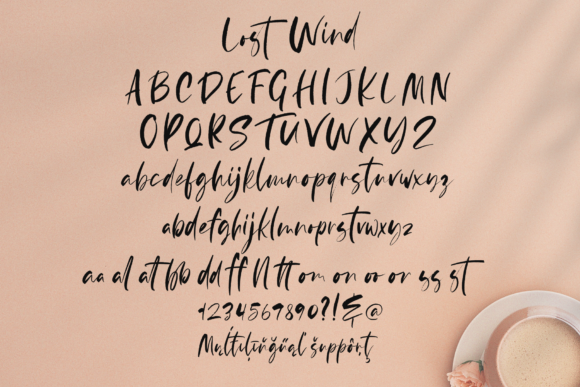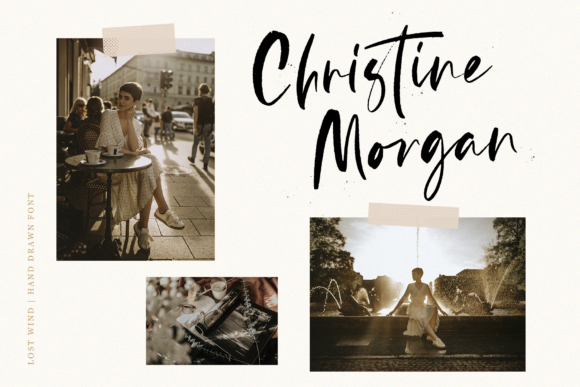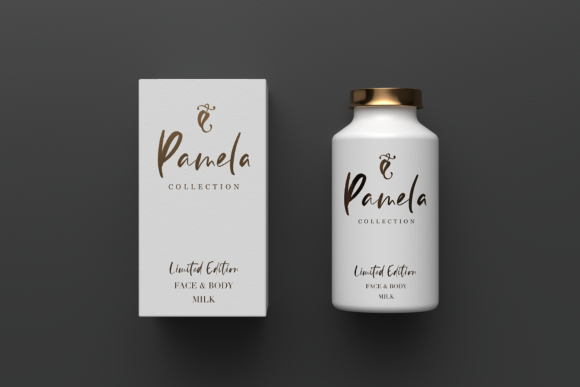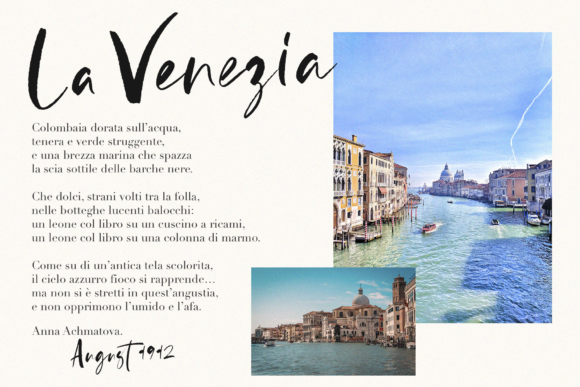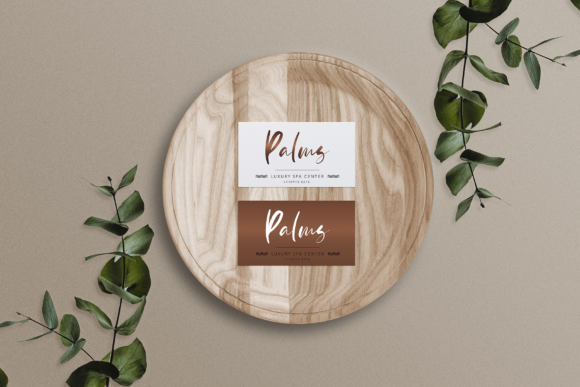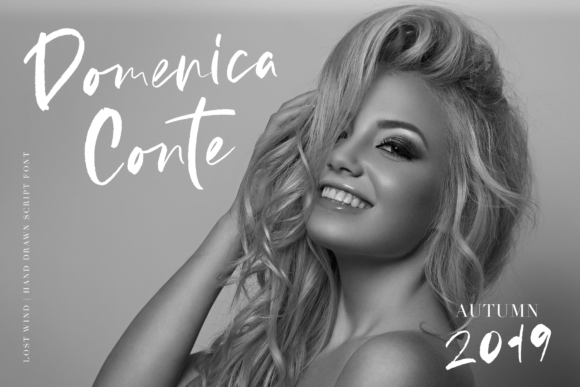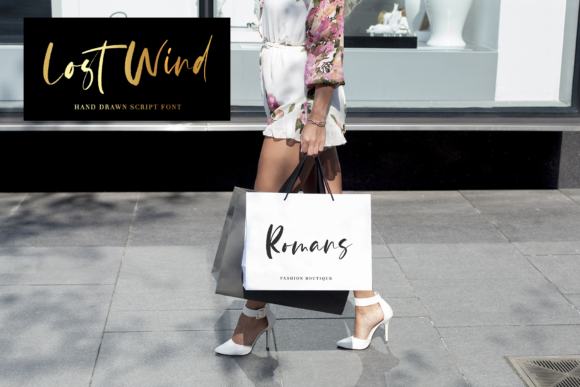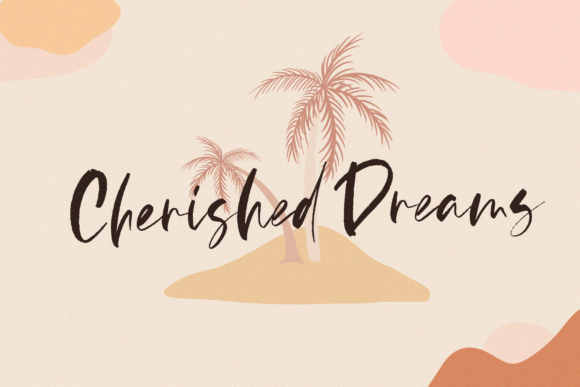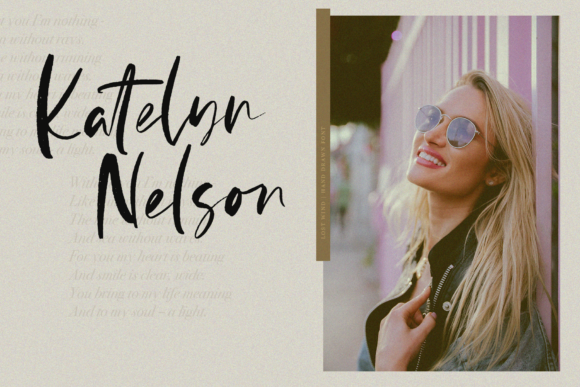
Lost Wind Font
About Lost Wind Font
Lost Wind – a new hand drawn brush font.
This is a beautiful and elegant hand drawn font that will emphasize your individuality in any project. You can also use it to create a logo or for small businesses, branding, t-shirts, book covers, stationery, marketing, blogs, magazines, and more.